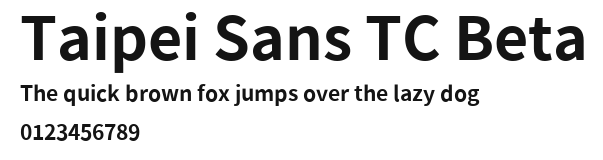
• Designer: JT Foundry
About Taipei Sans TC Beta.ttf
Taipei Sans TC Beta.ttf is a modern, elegant sans-serif font designed for ultimate readability and visual harmony. Perfect for branding, headlines, web design, and print materials.